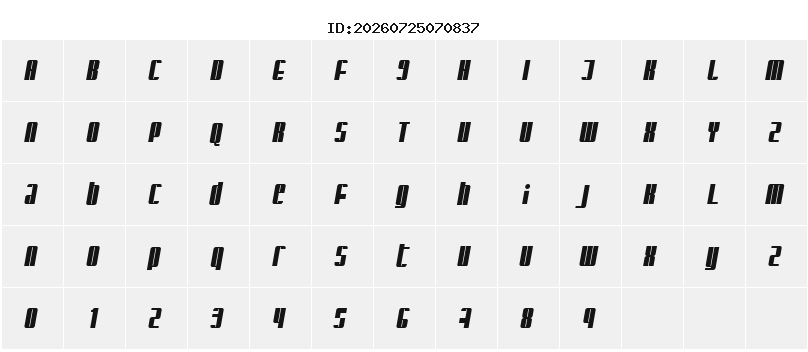
• Font Name: Glaring
• Font ID: Macromedia Fontographer 4.1 Glaring Italic
• Full Font Name: Glaring Italic
• PostScript Name: GlaringItalic
About Glaring.ttf
Glaring.ttf is a modern, elegant sans-serif font designed for ultimate readability and visual harmony. Perfect for branding, headlines, web design, and print materials.